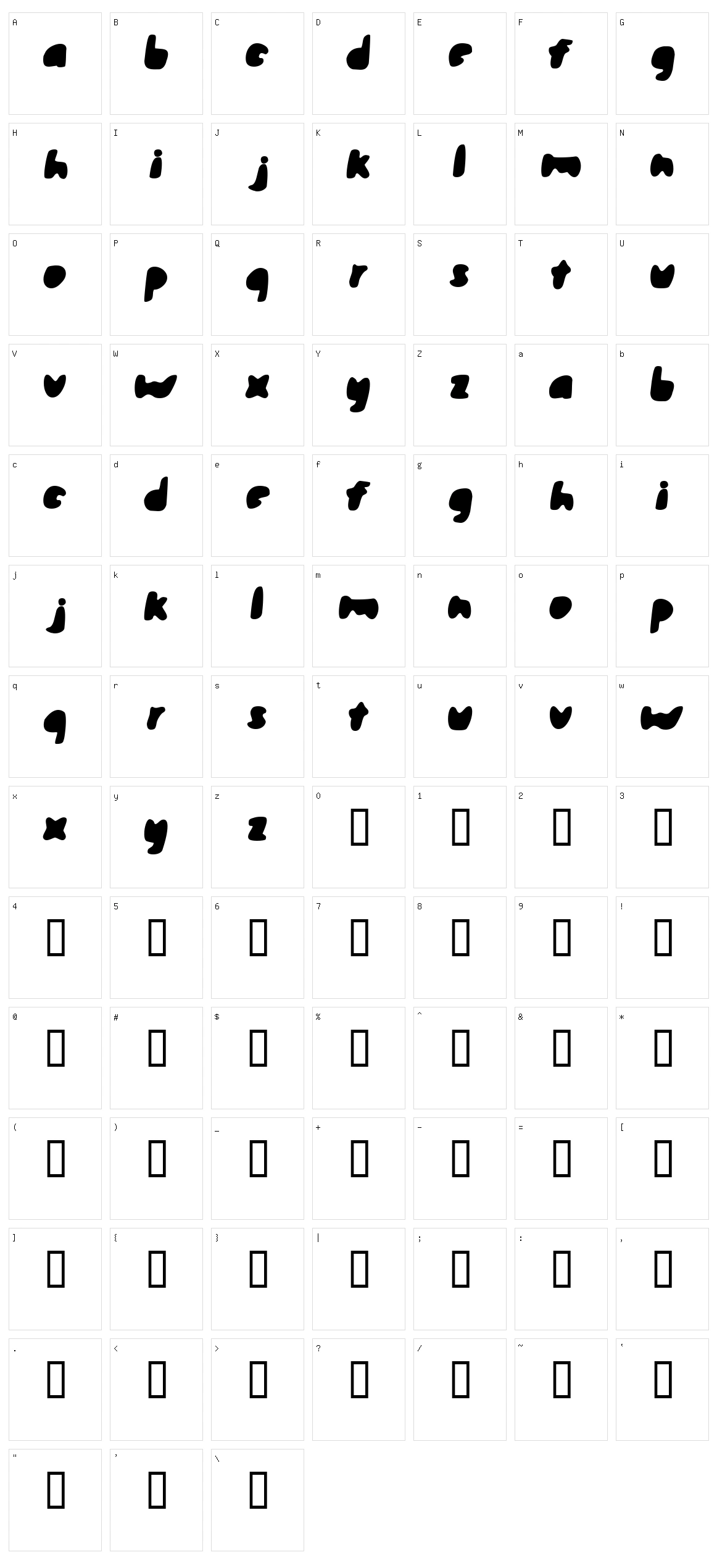
The free font Steamroller is carefully designed by Claren McLaughlin, showcasing a thoughtful balance of creativity and usability and falls under the Cartoon font style. When you download the ZIP file, it contains only 7.42 KB of font files, making it lightweight and quick to download. Please review the license details below to understand permitted usage and distribution rights. If license information is not available, we recommend using this font for personal projects only or contacting the author directly for commercial usage permissions.